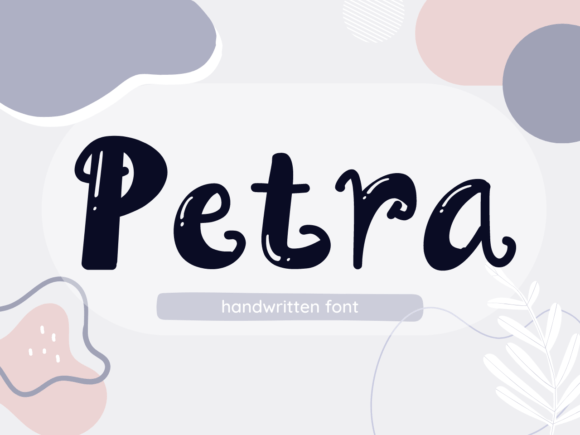
Welcome to the world of Petra Font, a striking script font family that will ignite your creativity and leave a lasting impression on your audience. Designed by the ingenious mind of Pukka De, Petra Font is inspired by the captivating art of hand-lettering, incorporating the nuances and imperfections of various brush strokes to create a truly unique and mesmerizing font.
Immerse yourself in the hauntingly beautiful world of Petra Font, meticulously crafted to evoke a sense of mystery and intrigue. Each letterform dances across the page like a phantom, its eerie elegance reminiscent of whispers from beyond the grave. Unleash your inner artist and let Petra Font guide you through the realm of dark fantasy and macabre aesthetics.
With Petra Font, you hold the key to unlocking a world of possibilities. Whether you're conjuring up chilling movie posters that send shivers down the spine or crafting haunting invitations that beckon the curious, Petra Font will elevate your designs to new heights of sophistication and intrigue.
This font is a true gem for those seeking to add an enchanting touch to their creative endeavors. Its intricate details and otherworldly charm will cast a spell on your audience, leaving them captivated and eager for more.